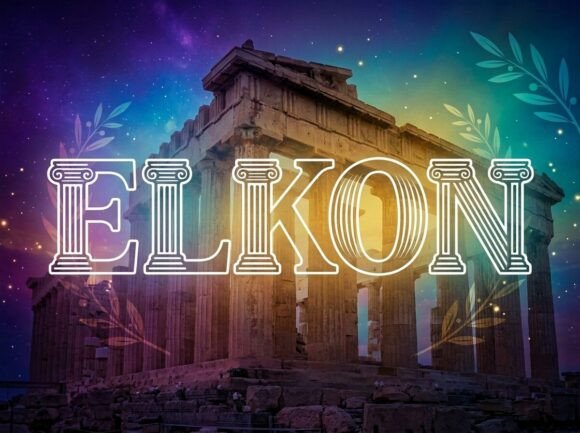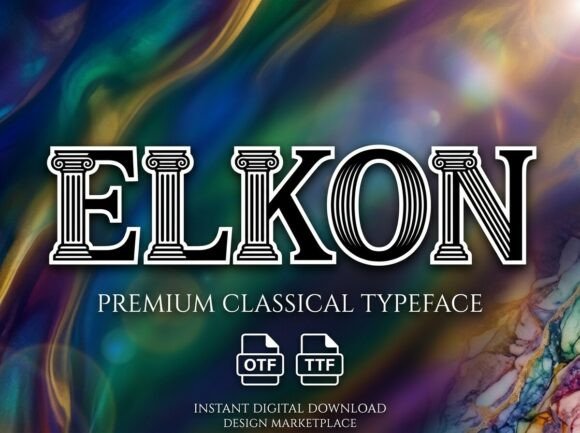
The Elkon Font: A Stunning Decorative Display Font to Elevate Your Designs
Have you ever been working on a project, pouring your heart and soul into it, and then suddenly realized that something’s missing? For me, that something was a font that could make my designs stand out from the crowd. I was working on a logo design for a client, and no matter how hard I tried, I just couldn’t find the right font to capture the essence of their brand. That’s when I stumbled upon the Elkon Font, and let me tell you, it’s been a game-changer ever since.
A Personal Review: What I Love About Elkon Font
So, what makes the Elkon Font so special? Here are a few things that I absolutely love:
- ✨ Unique artistic elements that add a touch of elegance to any design
- ✅ Strong visual personality that commands attention
- 💯 Versatility – perfect for bold headlines, artistic logos, and creative packaging
- 👍 Professional and polished finish that elevates any design
Now, I’m not going to sugarcoat it – the Elkon Font does come with a few quirks:
- ⚠️ It’s an ALL-CAPS (Uppercase Only) display typeface, which means it doesn’t include lowercase letters
- 🤔 It may not be the best choice for body text or long paragraphs
The Backstory Behind Elkon Font
The Elkon Font was designed with one goal in mind: to create a stunning decorative display font that would make designs stand out. The designer, who wishes to remain anonymous, was inspired by the art of typography and the need for unique and creative fonts in the design world. With its strong visual personality and artistic elements, the Elkon Font is sure to make a statement in any design.
| Font Name | Elkon Font |
| Author | kulturrno |
| Q: Is the Elkon Font suitable for body text? | A: No, the Elkon Font is designed for display purposes only and may not be the best choice for body text or long paragraphs. |
| Q: Does the Elkon Font include lowercase letters? | A: No, the Elkon Font is an ALL-CAPS (Uppercase Only) display typeface and does not include lowercase letters. |